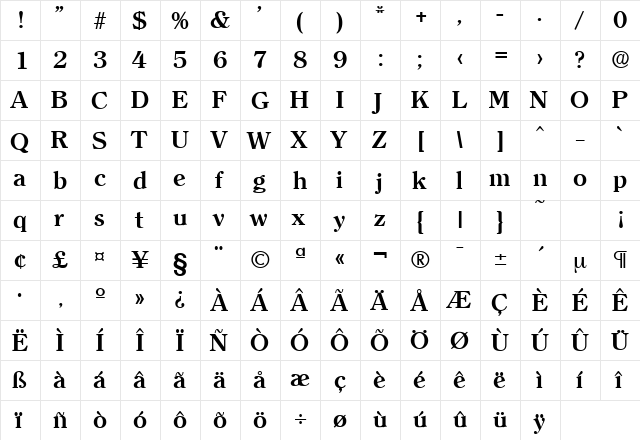
Clearface-Serial Bold Font Preview
Clearface-Serial Bold
Design Context for Clearface-Serial Typeface
Clearface-Serial offers clean, dependable letterforms without strong stylistic allegiance, making it a practical choice for designers who need flexibility. The heavy weight commands attention and anchors typographic hierarchies.
Pro Tip: Use Clearface-Serial in both headline and body roles to test its range before committing to a single application.